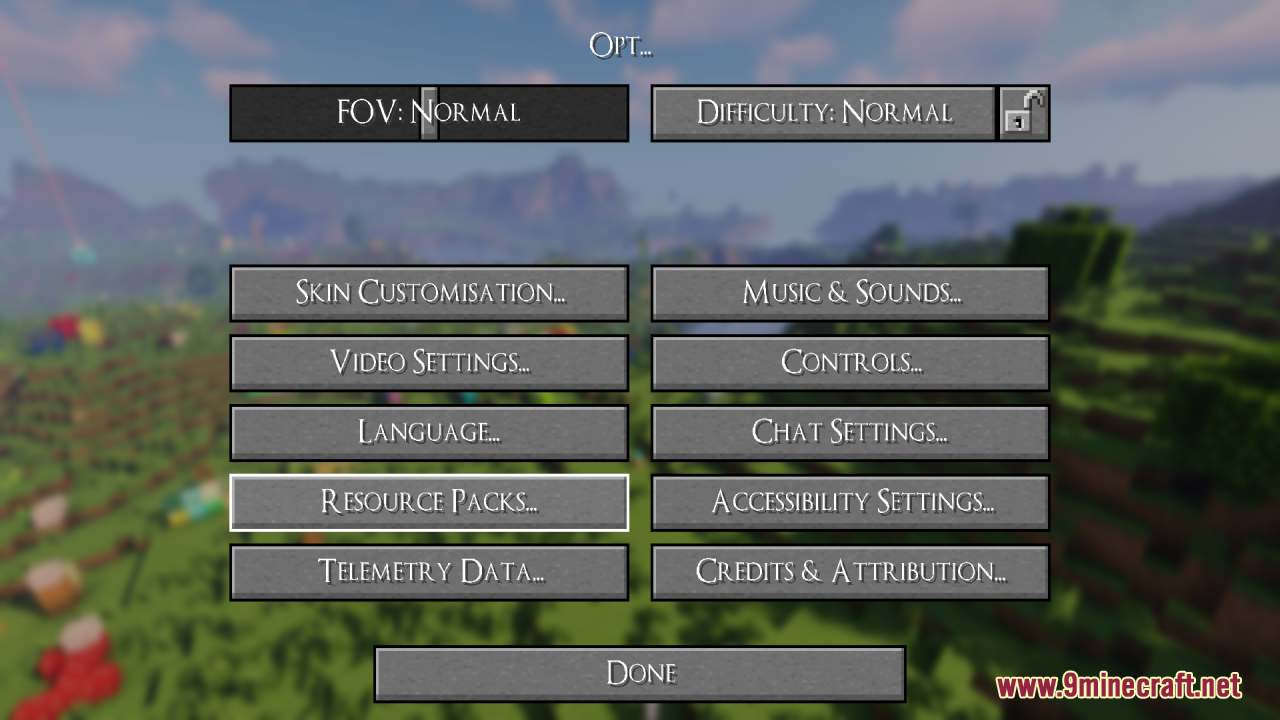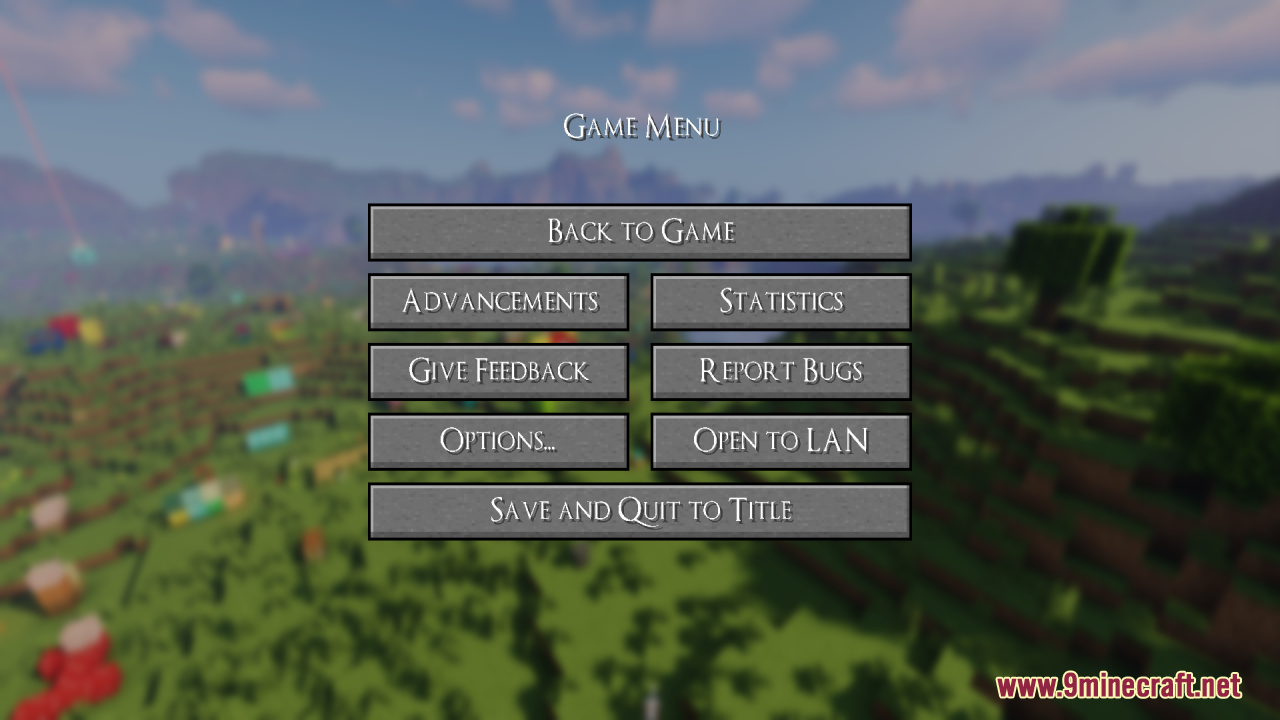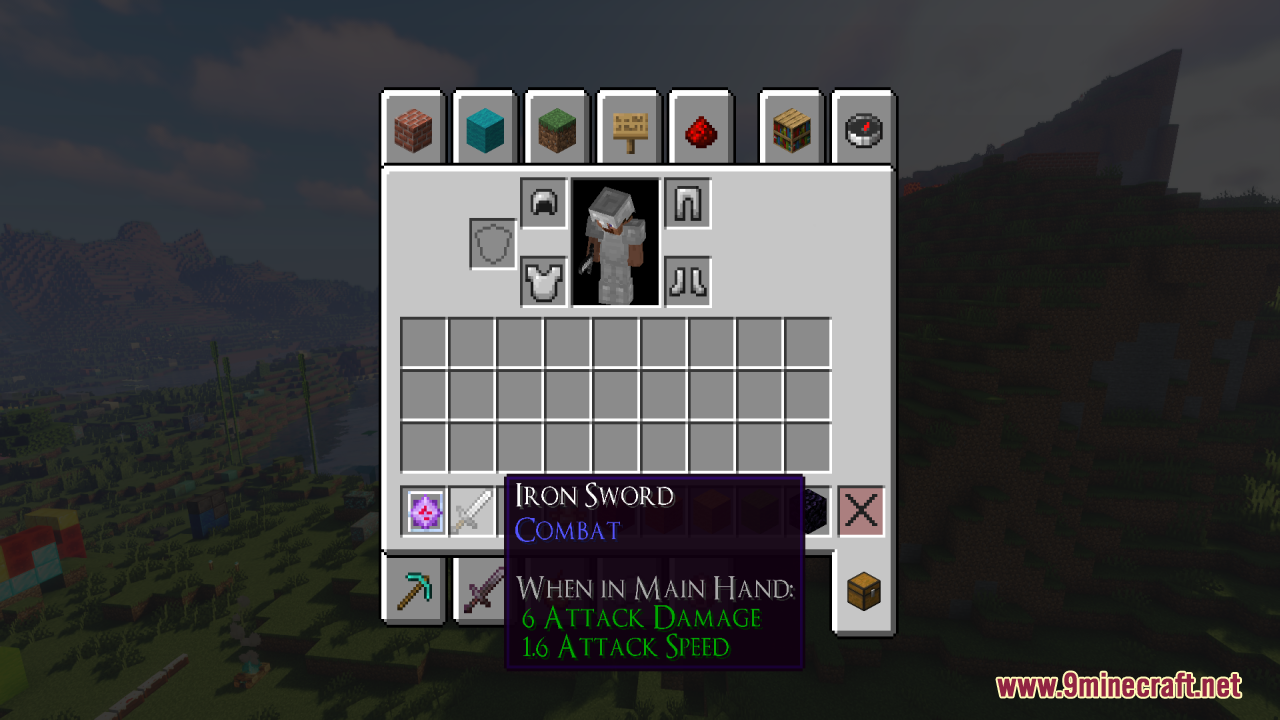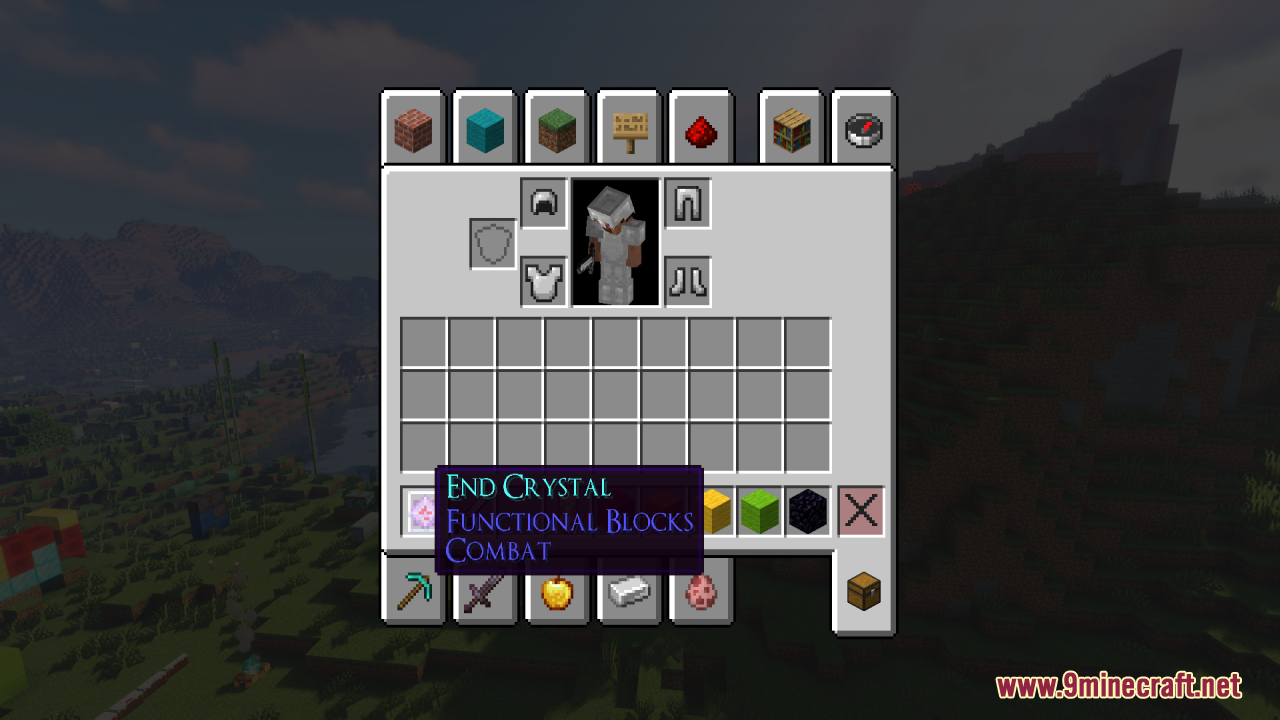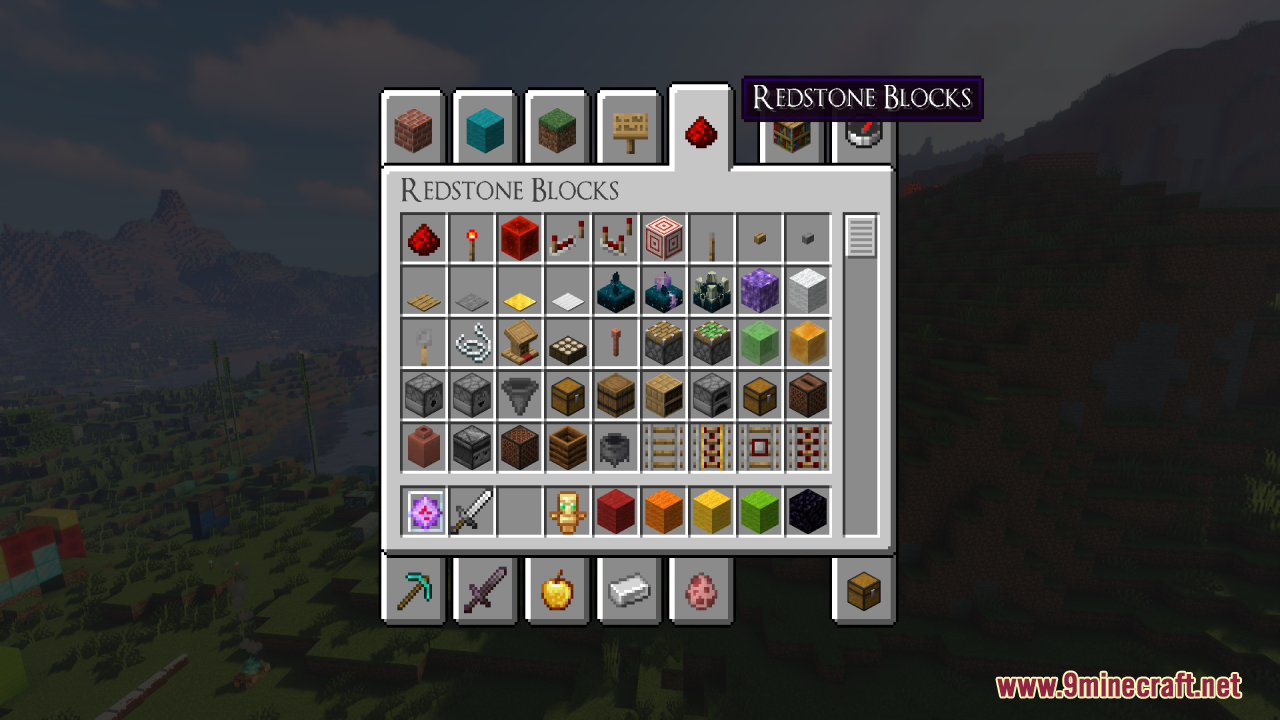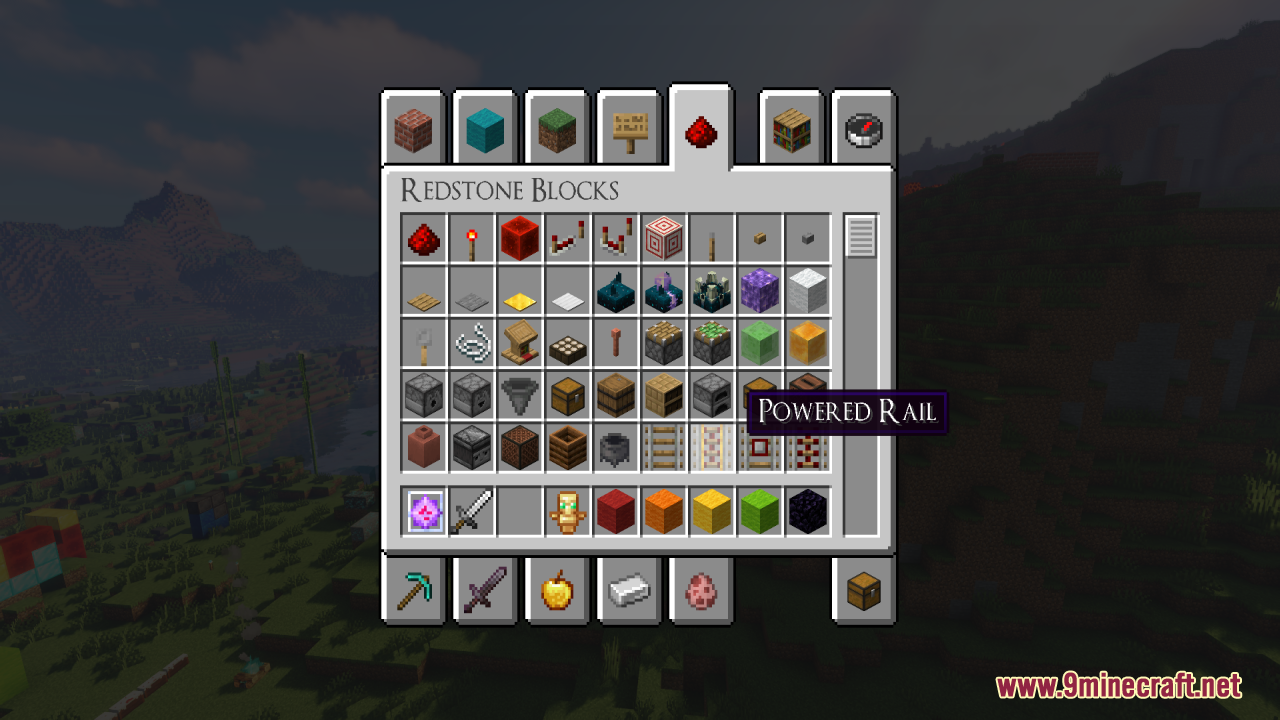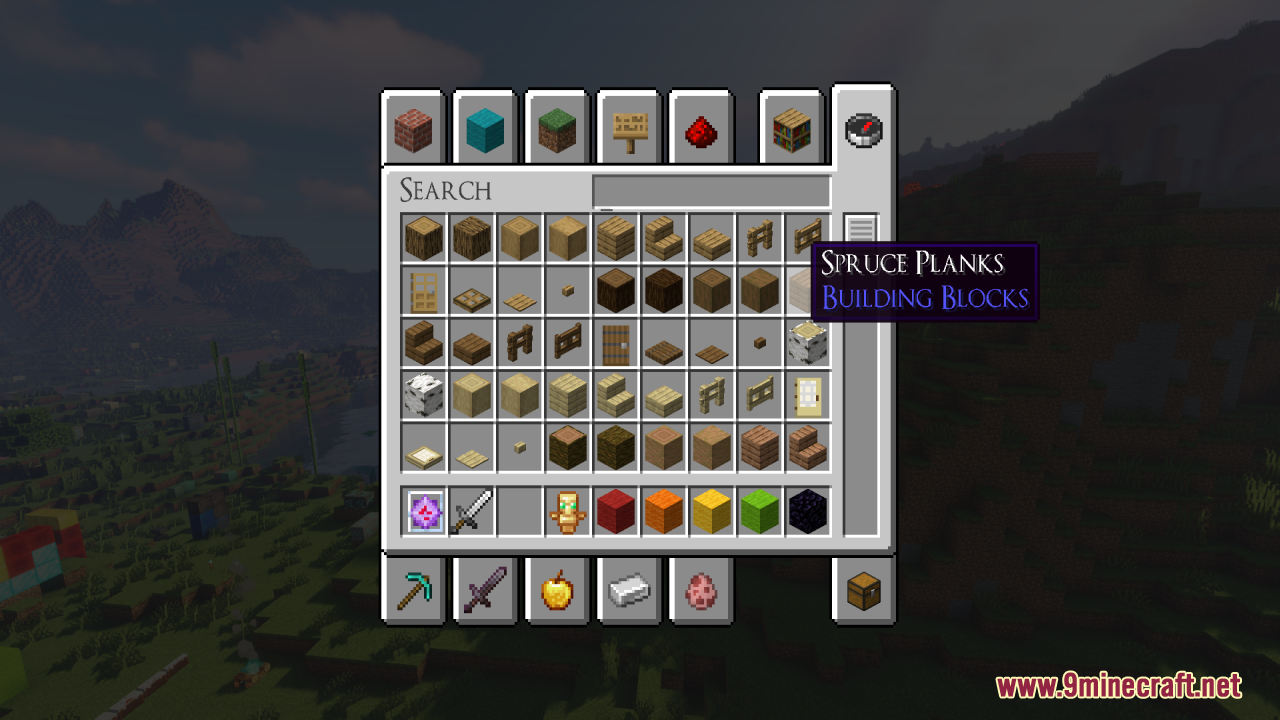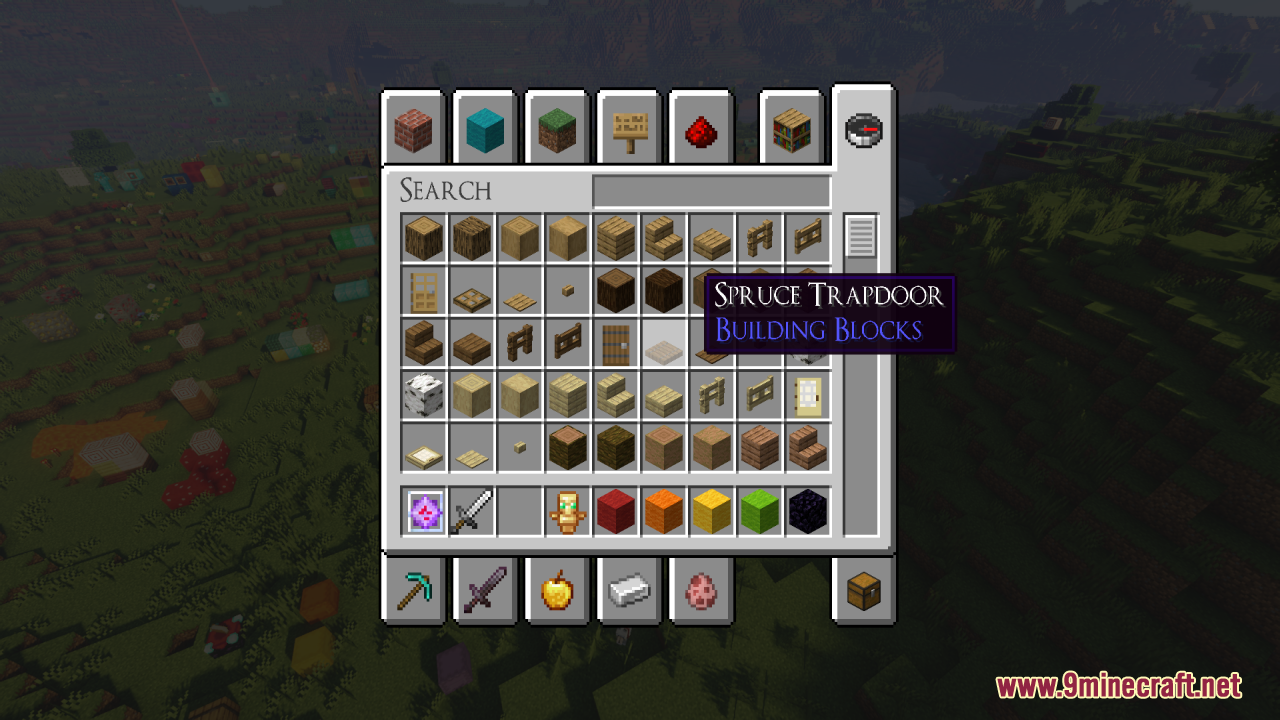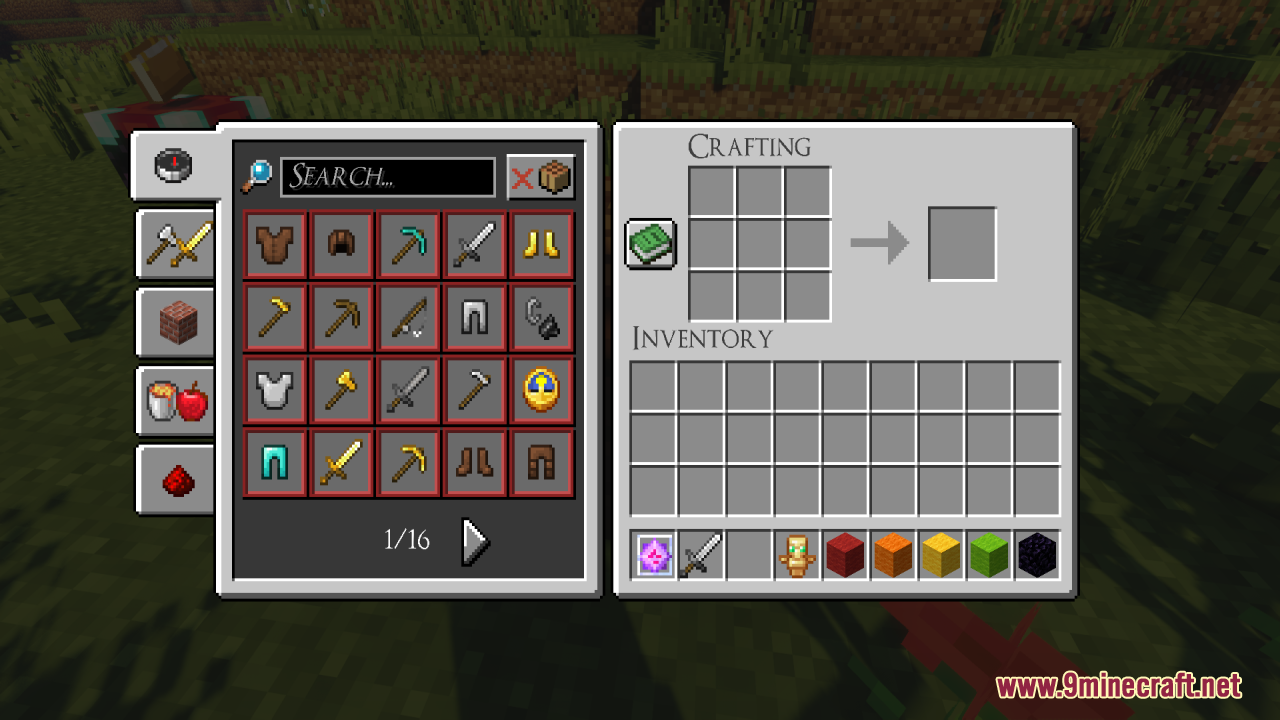
Souls RPG Font Resource Pack (26.2, 1.20.1) – Texture Pack
Souls RPG Font Resource Pack simply enhances the immersive experience of your RPG adventures by introducing a gothic and medieval-styled font. Not only does this font add a darker, more atmospheric touch to the game, but it also remains clear and easy to read, ensuring both style and functionality in your gameplay. In general, it is perfect for players who want to add a more classic fantasy feel to their Minecraft world.